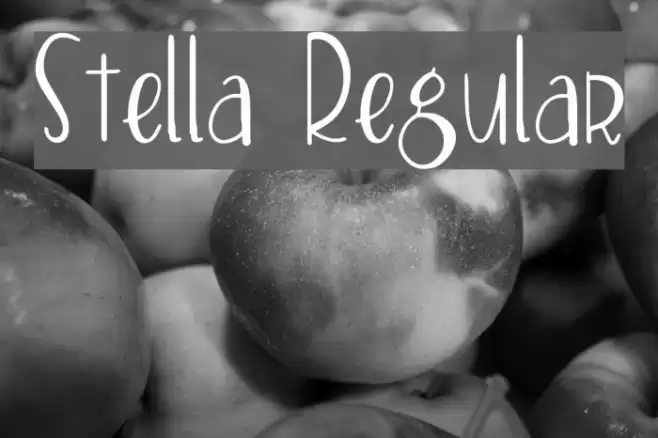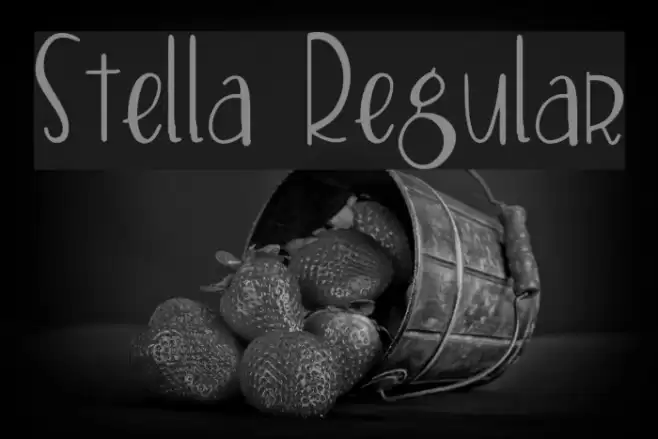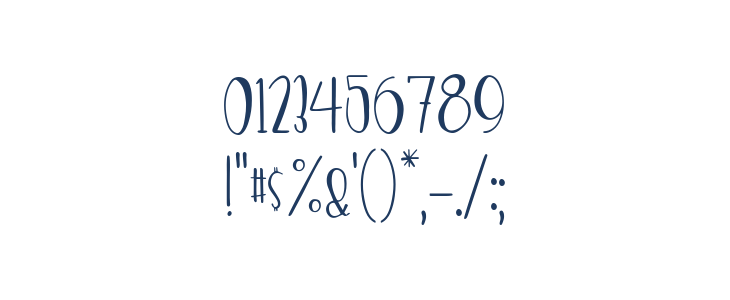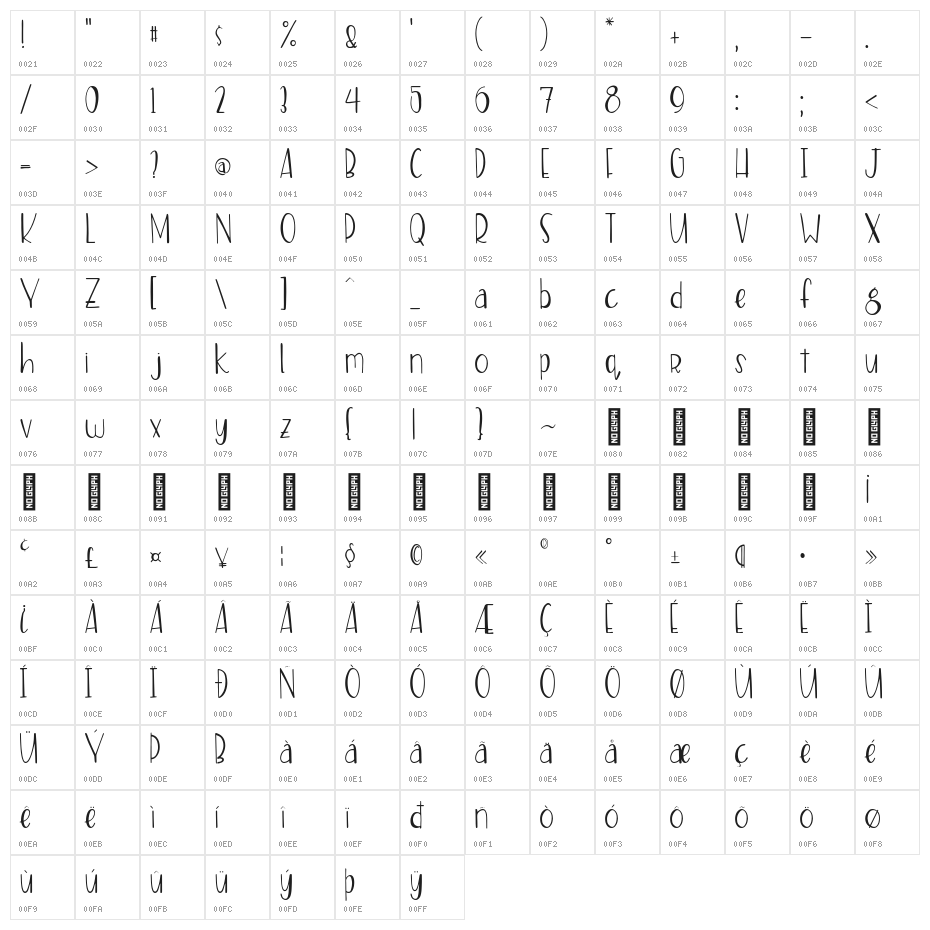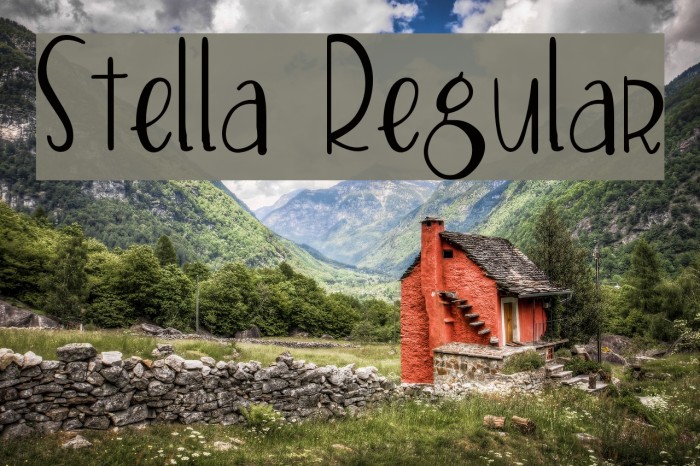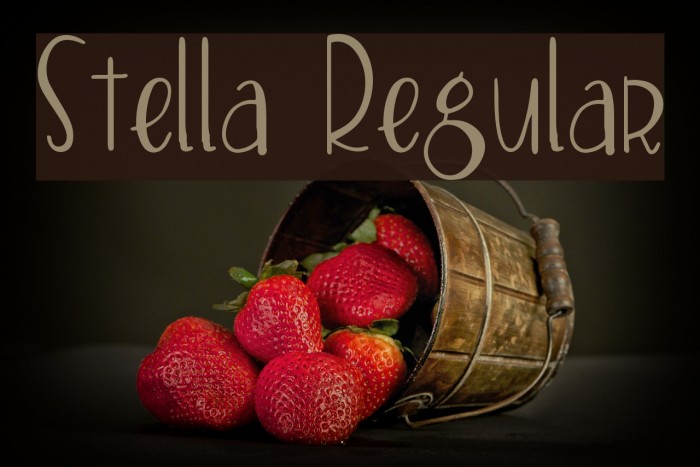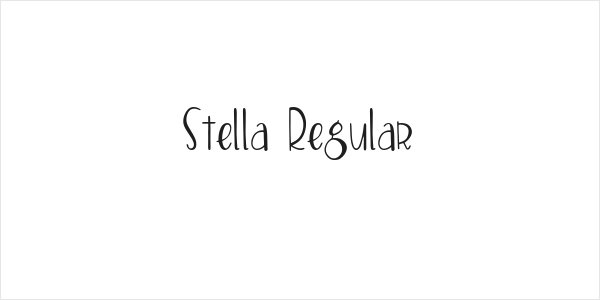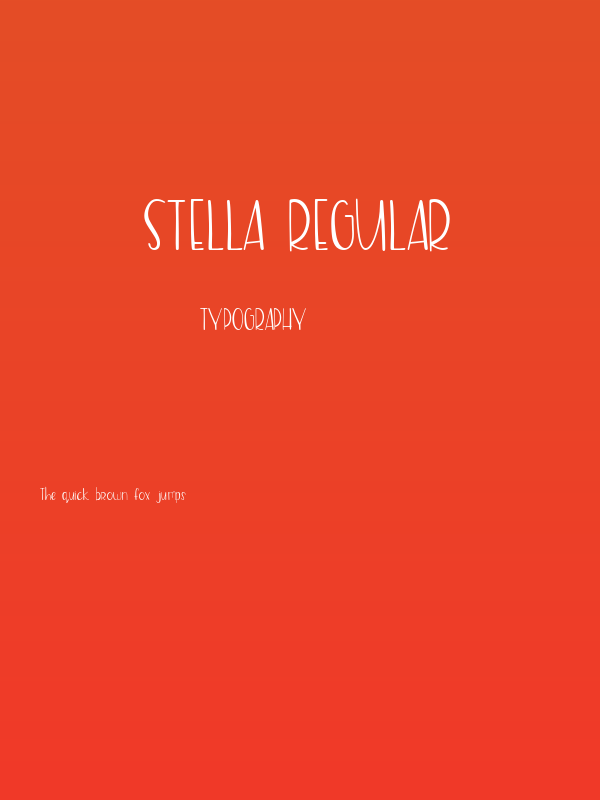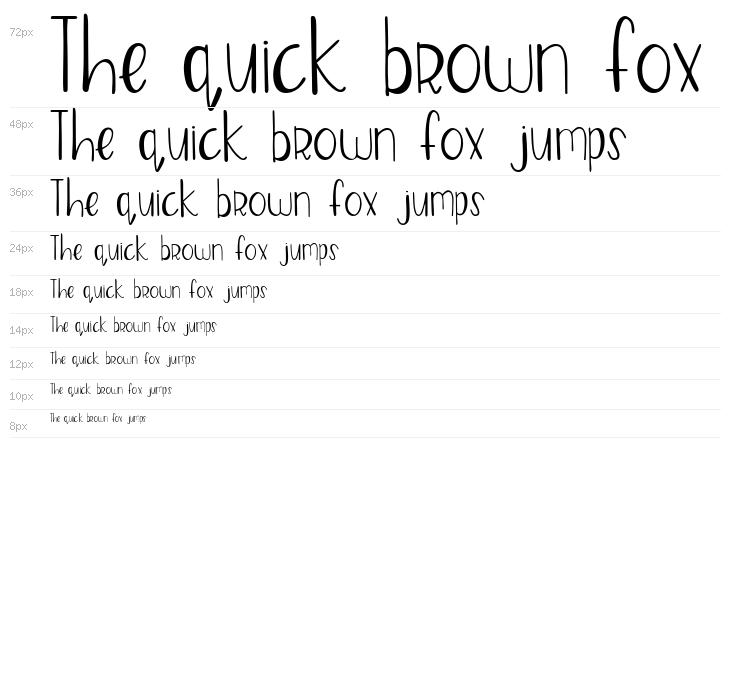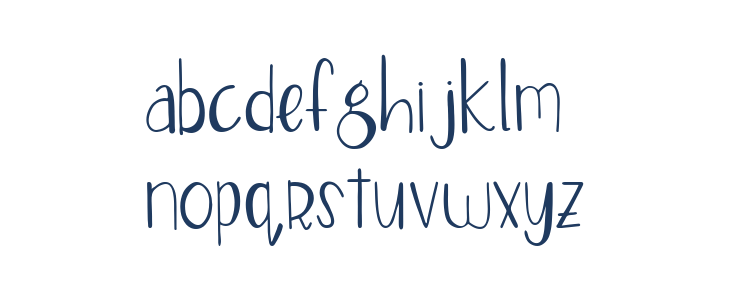
Stella Regular Font
Stella Regular Description
This font features a playful and whimsical style with tall, narrow characters that have a hand-drawn quality. The uppercase letters are elongated and slightly irregular, giving them a unique charm. The lowercase letters maintain a consistent height with a slight slant, adding to the casual feel. Numbers are similarly styled, with a mix of rounded and angular shapes. The special characters are creatively designed, fitting well with the overall aesthetic. This font's distinct personality makes it suitable for projects that require a touch of creativity and individuality.
A playful, hand-drawn font with tall, narrow characters and a whimsical style from Uncategorized fonts.
- Proposed Projects: Ideal for children's books, creative posters, greeting cards, and playful branding.
- Use Case: Headlines, Logos, Creative projects